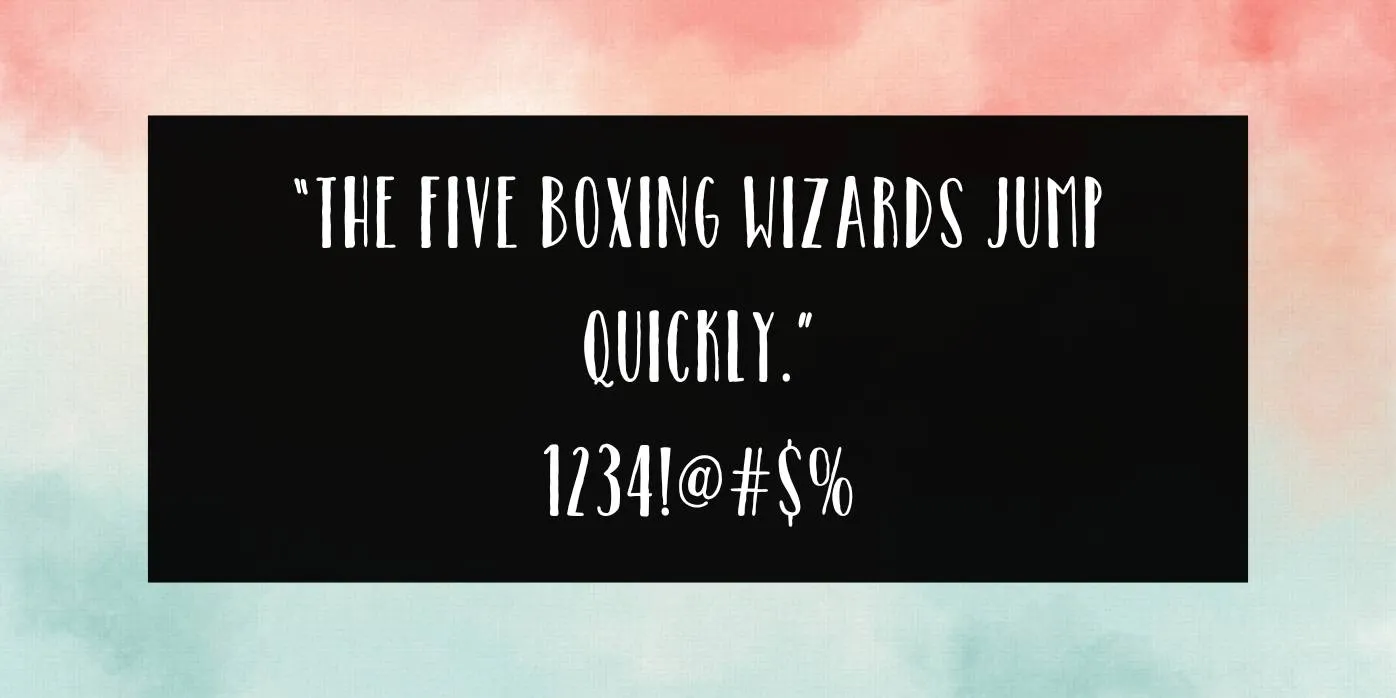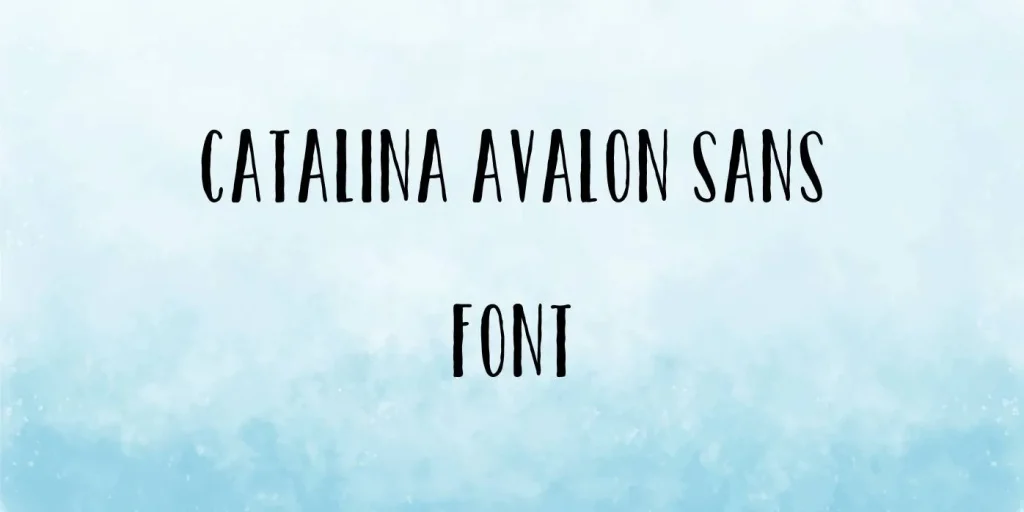
This font style arises in four unique styles and weights Regular, Bold, Light, and Inline with Slab also it has high distinction and outstanding appearance.
This font style includes both capital and small letters, symbols, numbers, punctuations, geometric shapes, mathematical operators, a few special characters, and unrivaled glyphs, it can provide a scraggy and outmoded look to the text design.
Although it has similar features to Quick Sand Font, that can create a classic and beautiful display. You can couple this font with Clarendon font to get extraordinary consequences.
Adding a Touch of Boldness to Your Designs with Catalina Avalon Sans Font
This typeface has modern characters and great options for the making of all kinds of design, it is suitable for logos, headlines, titles, phrases, slips, paragraphs, documentation, etc.
Many students can use this font in their school assignments, presentations, and notes. This typeface is having smooth and impressive letters that can be used in the making of interesting invitation cards, brochures, posters, banners, branding, book covers, thumbnails, social media posts, and so on.
It is also perfect for websites, labeling, themes, certificates, advertisements, and any kind of official and non-official work and presentations.
Who designed Catalina Avalon Sans font?
This is a superior font family that was designed by graphic designer Kimmy Kirkwood in the year 2014.
Where can we use Catalina Avalon Sans font?
this typeface has a smooth and clean texture, it is useful for the making of stunning designs such as Logos, labels, thumbnails, headlines, banners, posters, etc.